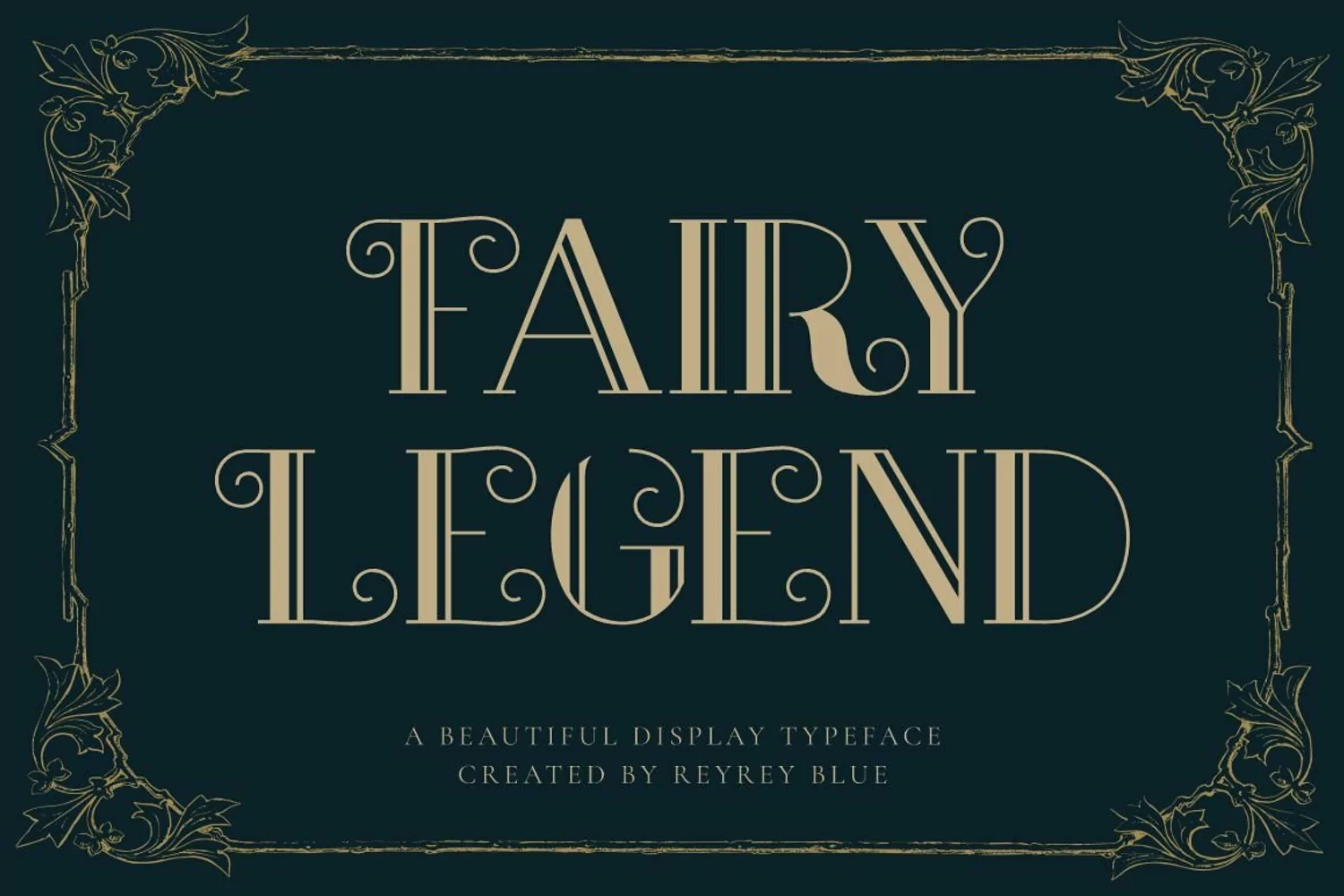
Introducing Fairy Legend. It is a wonderful retro font designed in the Art Deco style. Inspired by typography from the 1920s ,that suit the mood of your project.
This type of font is perfect for logos, headlines, signage, and other various formal forms such as invitations, labels, logos, magazines, books, greeting/wedding cards, packaging, fashion, makeup, stationery, novels, labels, or any advertising purpose. This product was created to help you make your digital images even more beautiful and unique.